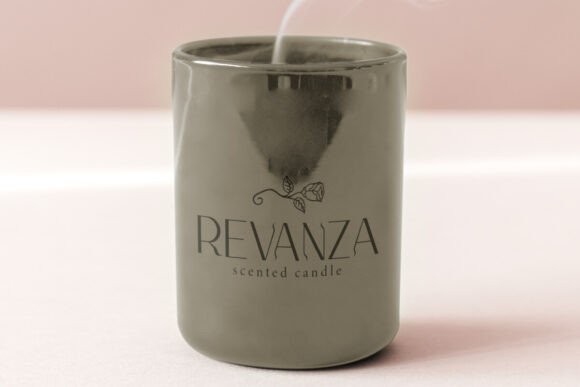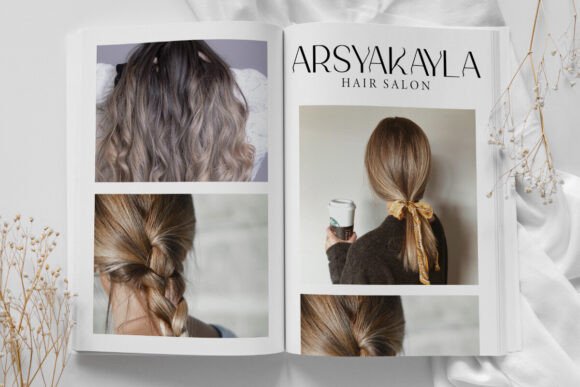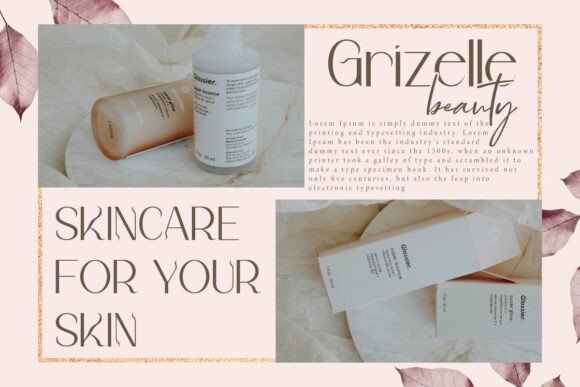
Belirium Font
Belirium Font is a stunningly elegant serif display font with eye-catchy letter shape. This font has a luxurious and minimalist styles to perfect your design and look even more stunning. It will suits many designs, such as brand image, custom design, gift box, invitation, label, magazine, poster, product packaging, quote, signage, stationery, website page, and more!